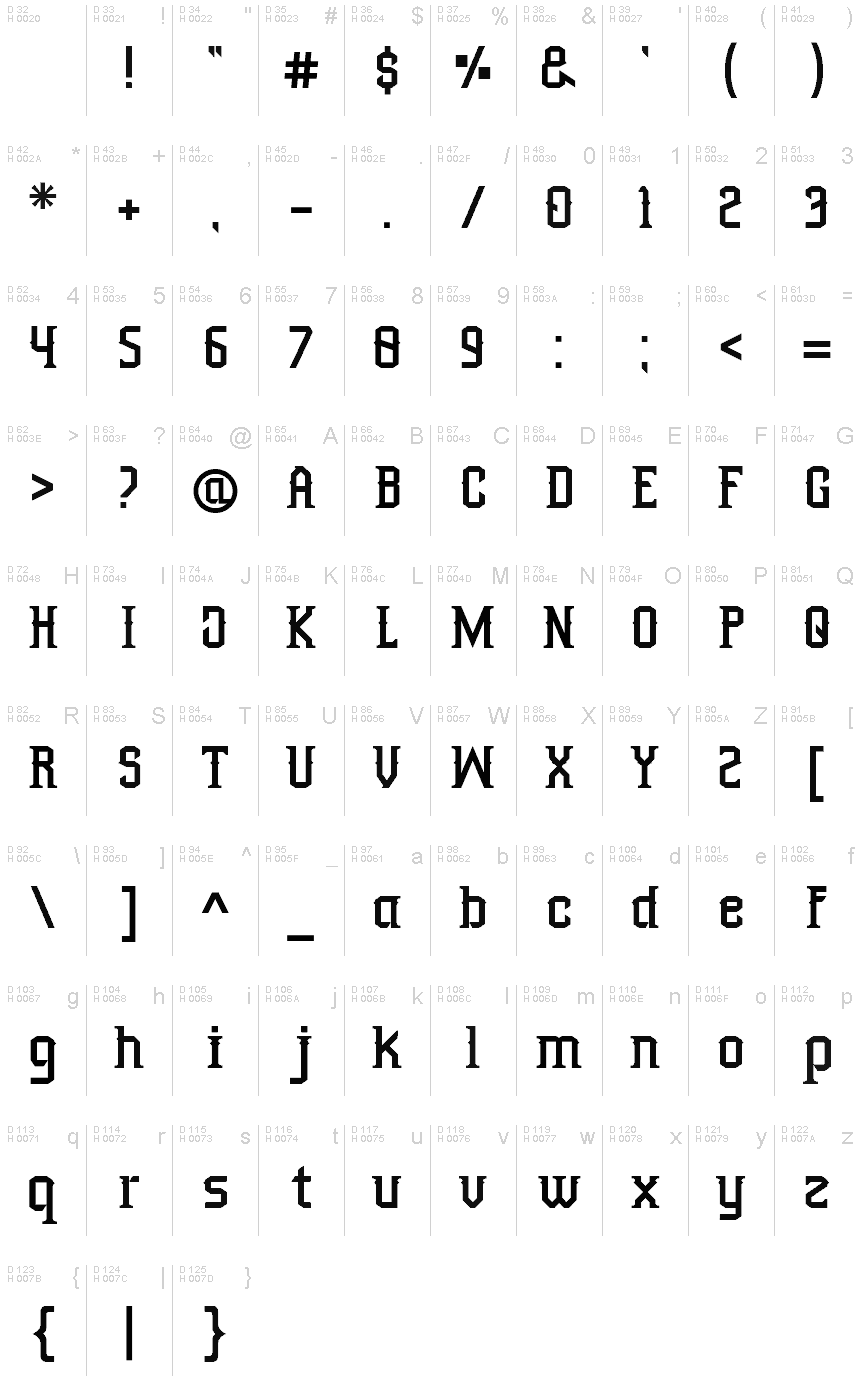
Outromoro
Outromoro is a striking, vintage-inspired display font that exudes an old-school aesthetic. With its bold, condensed letterforms and intricate serifs, this font commands attention and evokes a sense of timeless elegance. Outromoro's unique character shines through in its dramatic swashes and sharp, angular details, making it a versatile choice for a range of design applications, from product packaging and branding to editorial layouts and event materials.
Its strong, eye-catching presence can lend an air of sophistication and authenticity to any project, evoking a sense of nostalgia and a touch of the avant-garde.